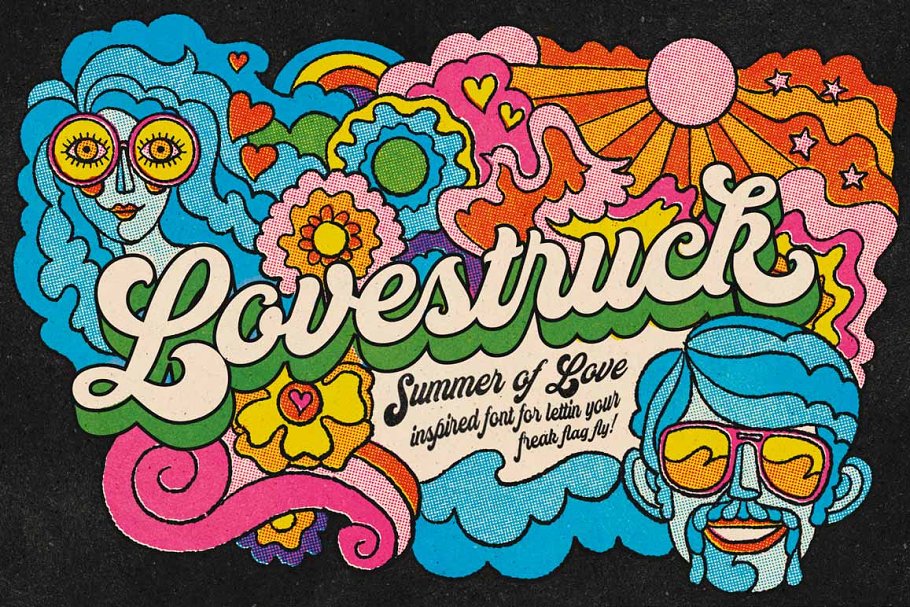
LET YOUR FREAK FLAG FLY WITH LOVESTRUCK - the ultimate script font for anyone who loves the vintage look and wants to capture the magic of the 60s and 70s in their designs!
Created by lettering icon Jason Carne and inspired by the freeform lettering of the 60s and 70s, Lovestruck is the perfect font for anyone who wants to create designs with a vintage feel. The font family is packed with over 600 glyphs, including initial and terminal letters, alternates, ligatures, and multiple language support for Western European languages.
But what really sets Lovestruck apart is its OpenType features - they adjust automatically within your design layout, so you don't have to fuss around with tracking values or kerning pairs. The font is built on solid lettering principles from the early 20th century, and its roots lie in the luxurious details of the Art Nouveau movement and the bold flourishes found in psychedelic culture.
With Lovestruck, you can let your creativity run wild and achieve beautiful designs effortlessly. Whether you're creating a retro poster, designing a vintage logo, or adding some vintage flair to your website, Lovestruck is the perfect tool for the job.